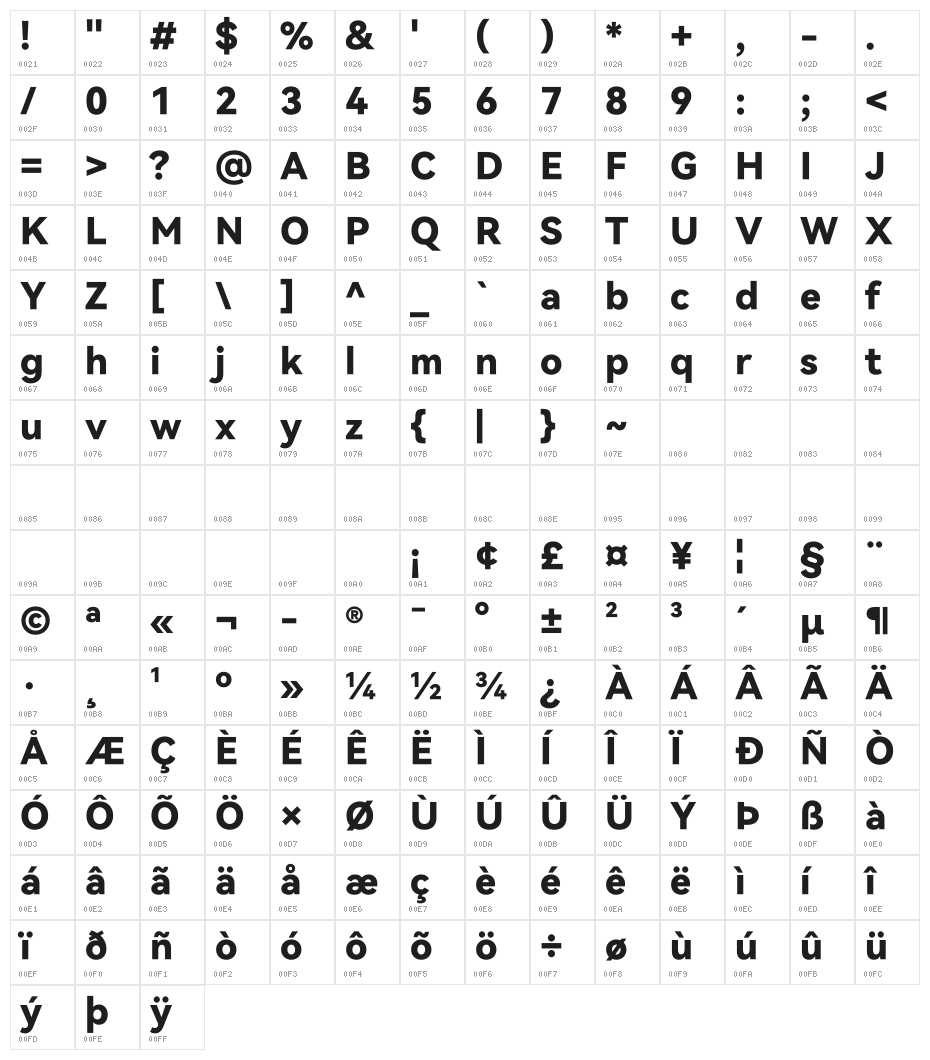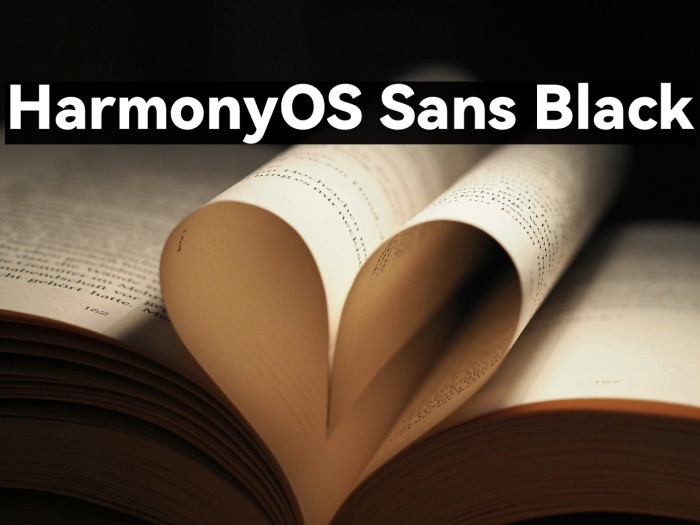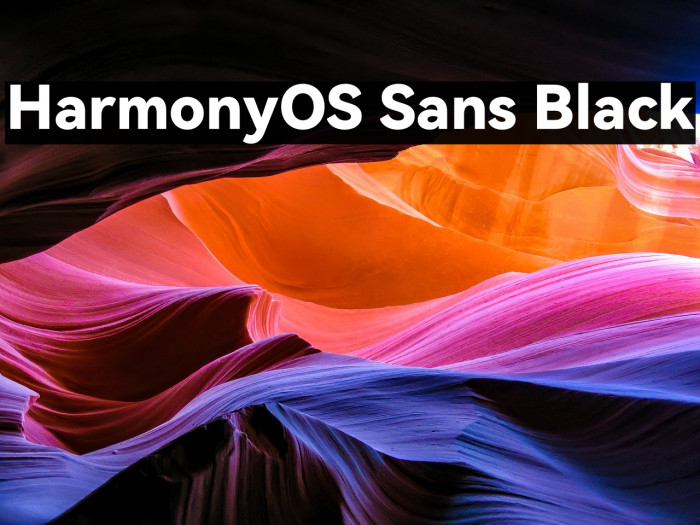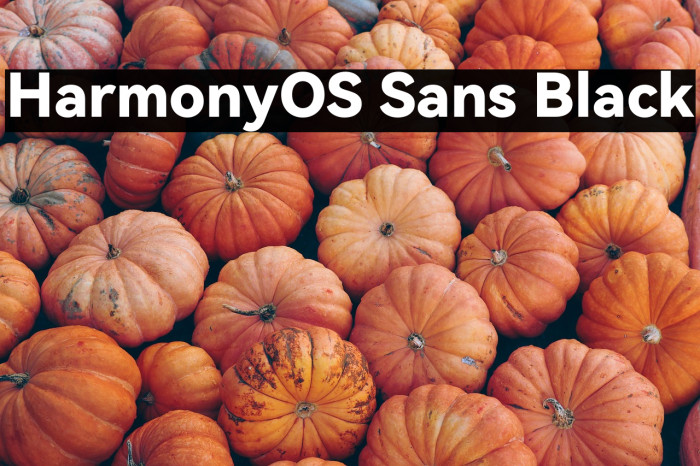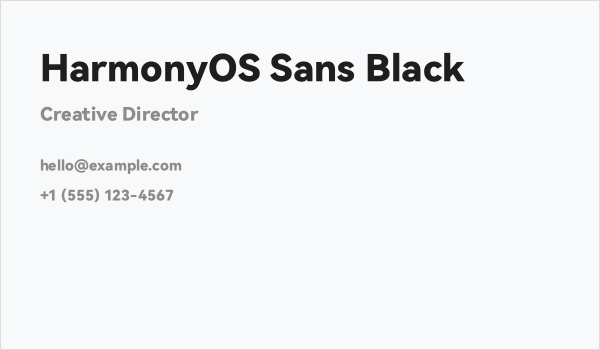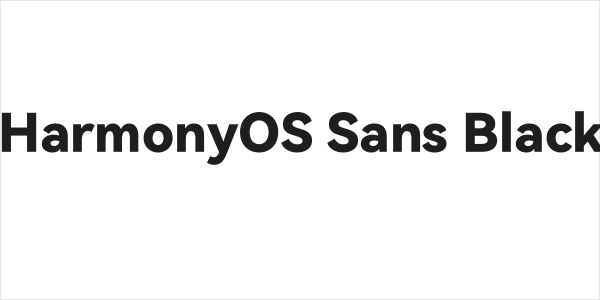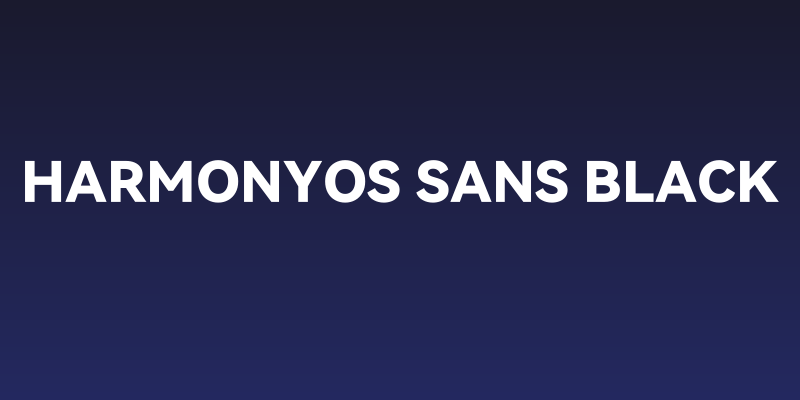
HarmonyOS Sans Black Font
HarmonyOS Sans Black Description
This font exhibits a bold and modern sans-serif style, characterized by its clean lines and uniform stroke widths. The uppercase and lowercase letters maintain a consistent height and width, contributing to a balanced and harmonious appearance. The numerals are clear and easily distinguishable, making them suitable for both digital and print media. The special characters are well-integrated, ensuring versatility across various applications. Overall, this font's simplicity and clarity make it ideal for contemporary design projects.
| Use Case | Headlines, Logos, Digital Interfaces |
| Proposed Projects | Ideal for branding, headlines, digital interfaces, and signage due to its clarity and modern appeal. |